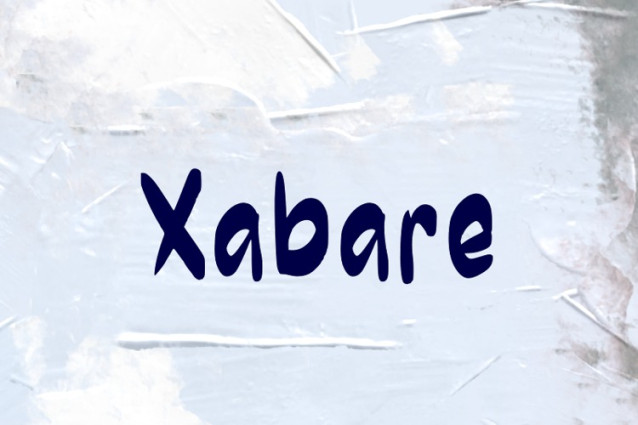
Xabare Font
Xabare Font, suitable for any design needs : logo, branding, modern advertising design, logos, poster quote, book / cover Title, editorial design, website / blog, card, t-shirts, and any hand-lettered needs.